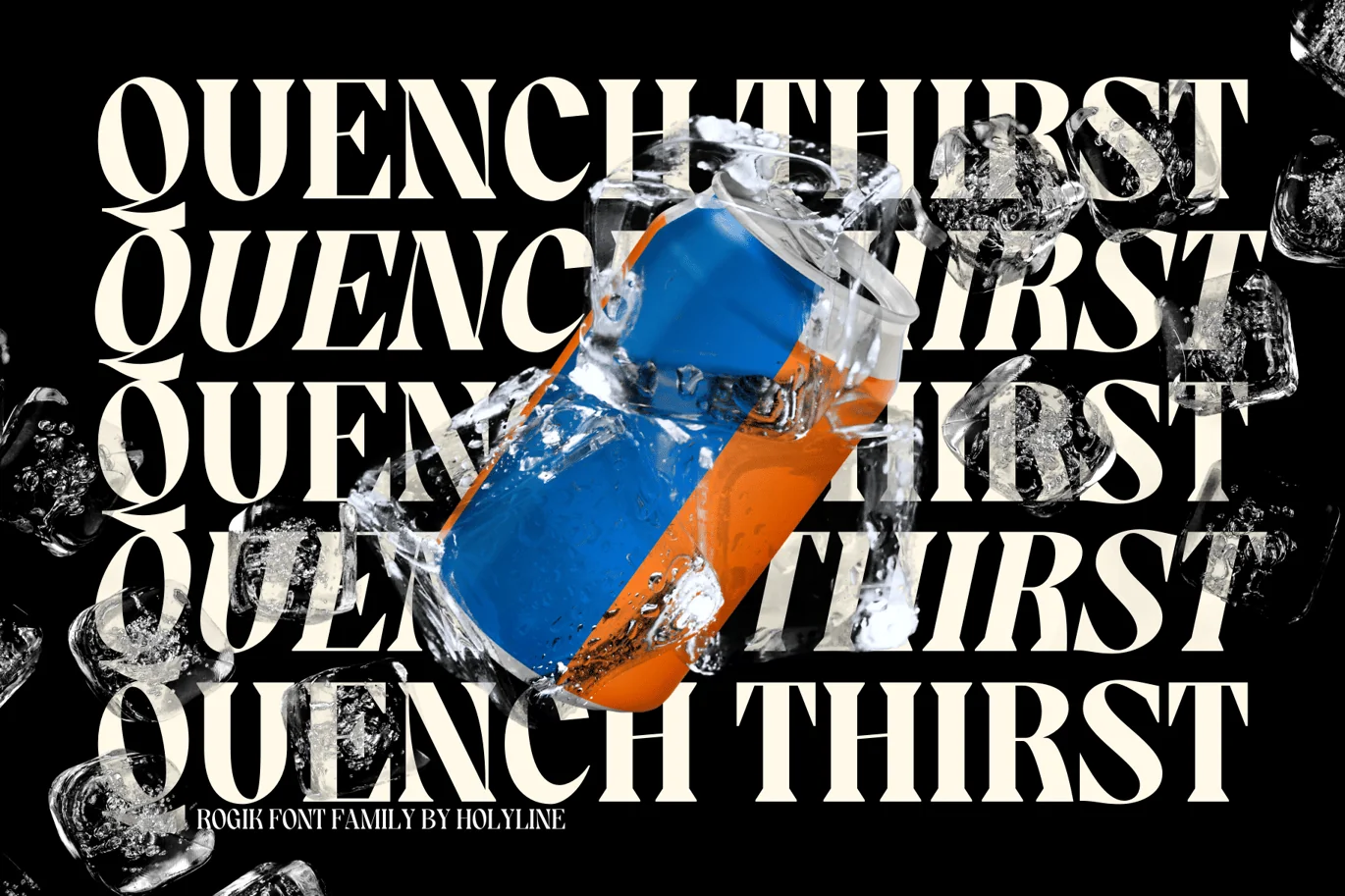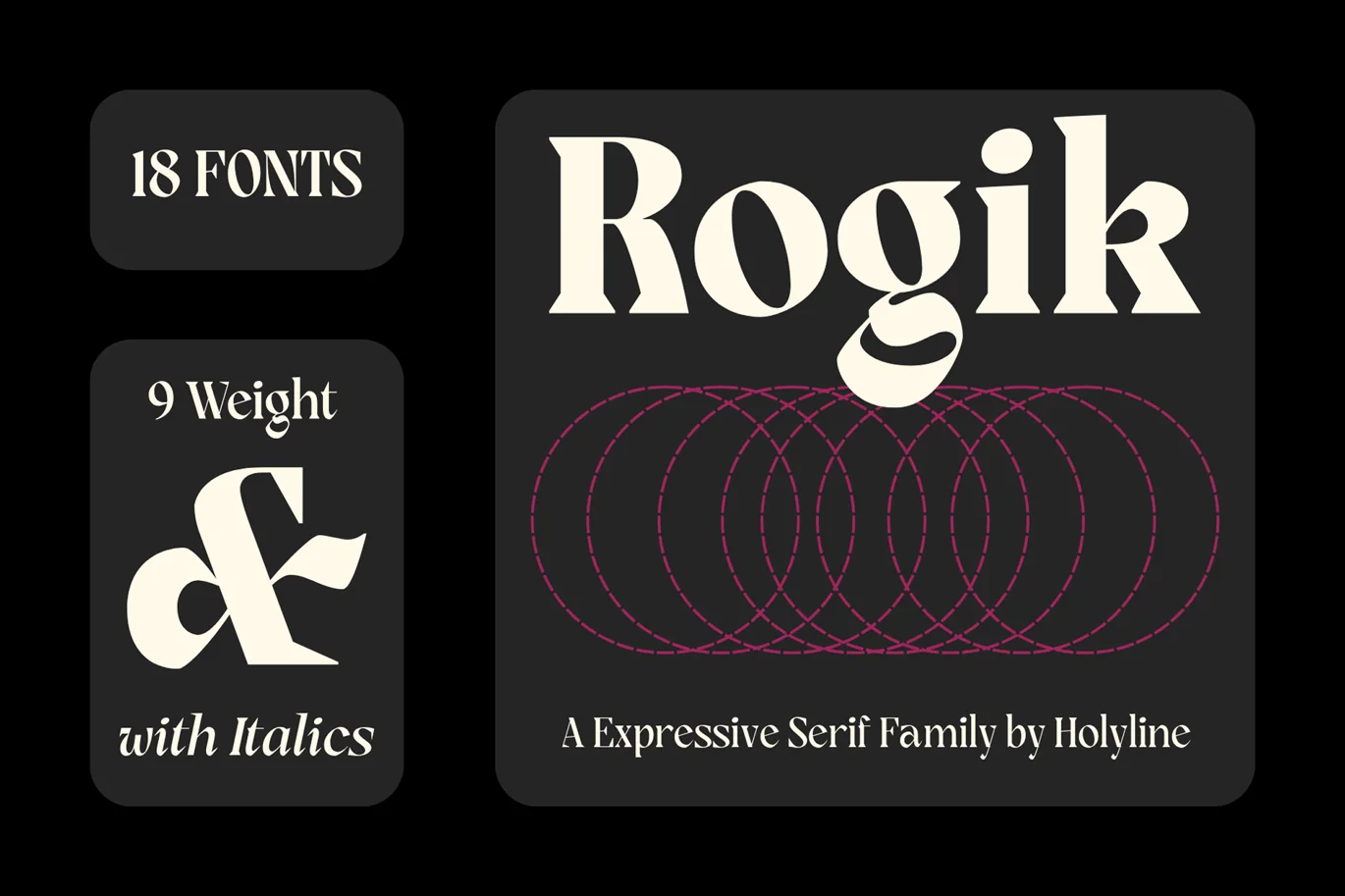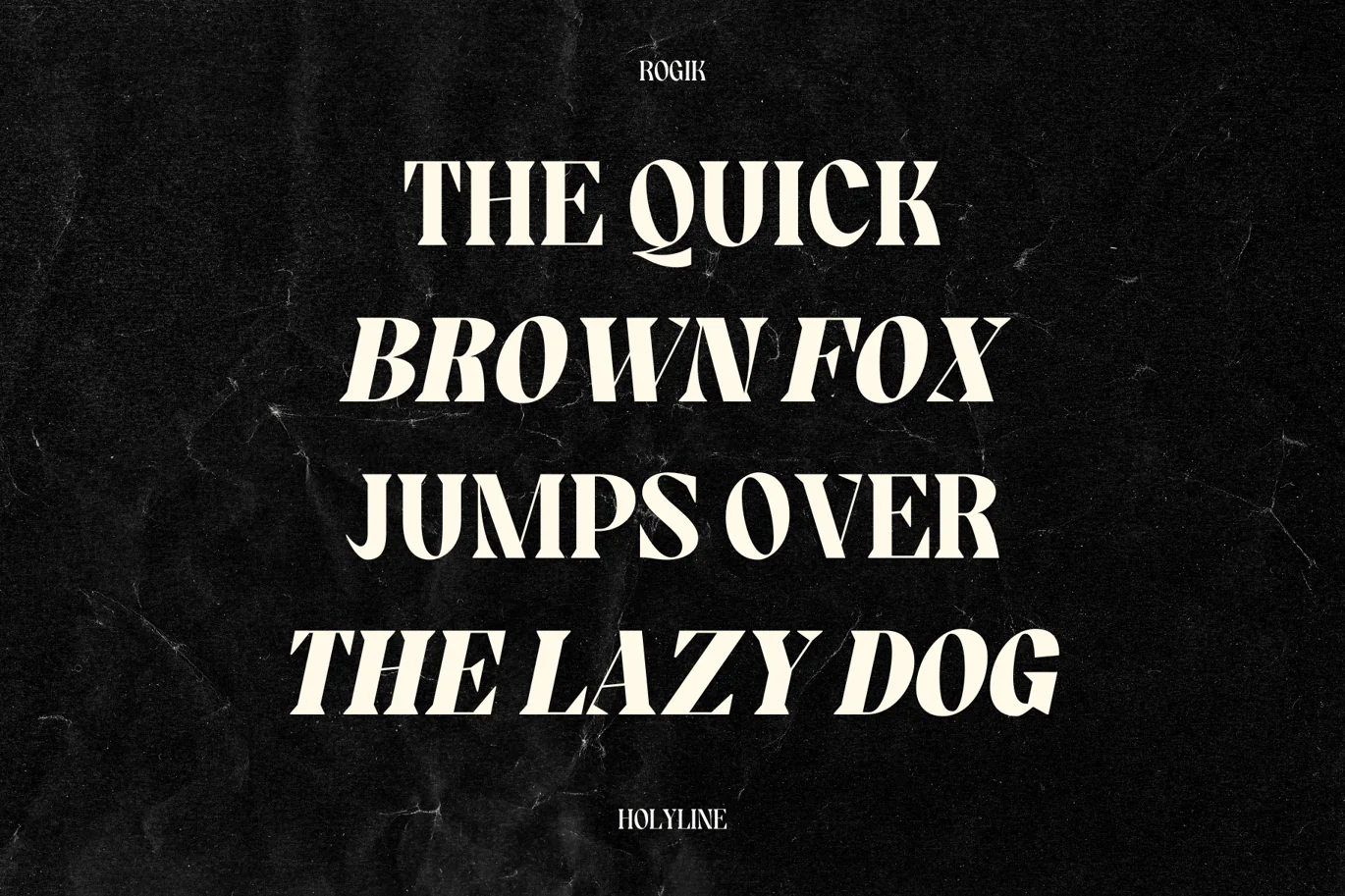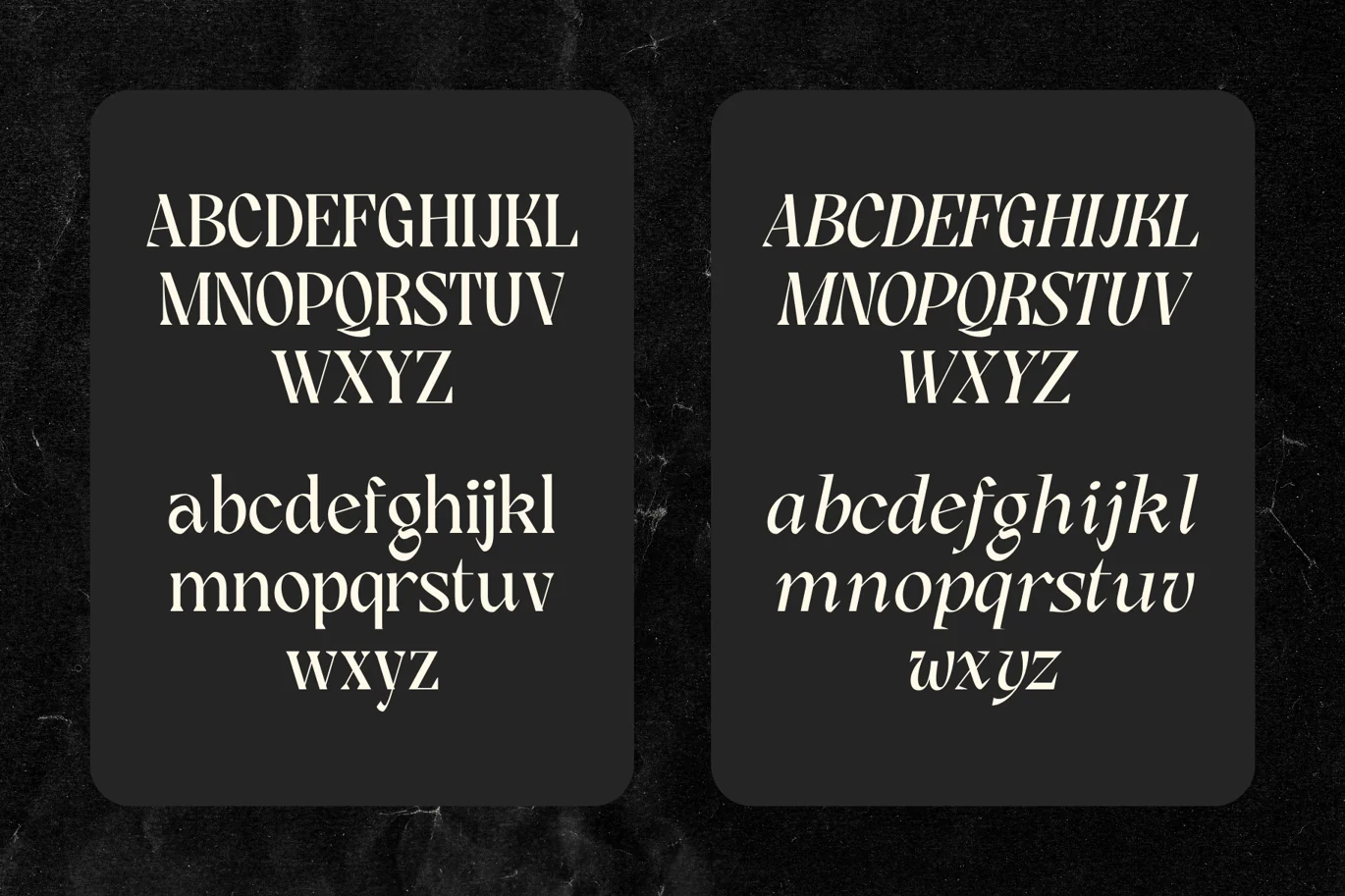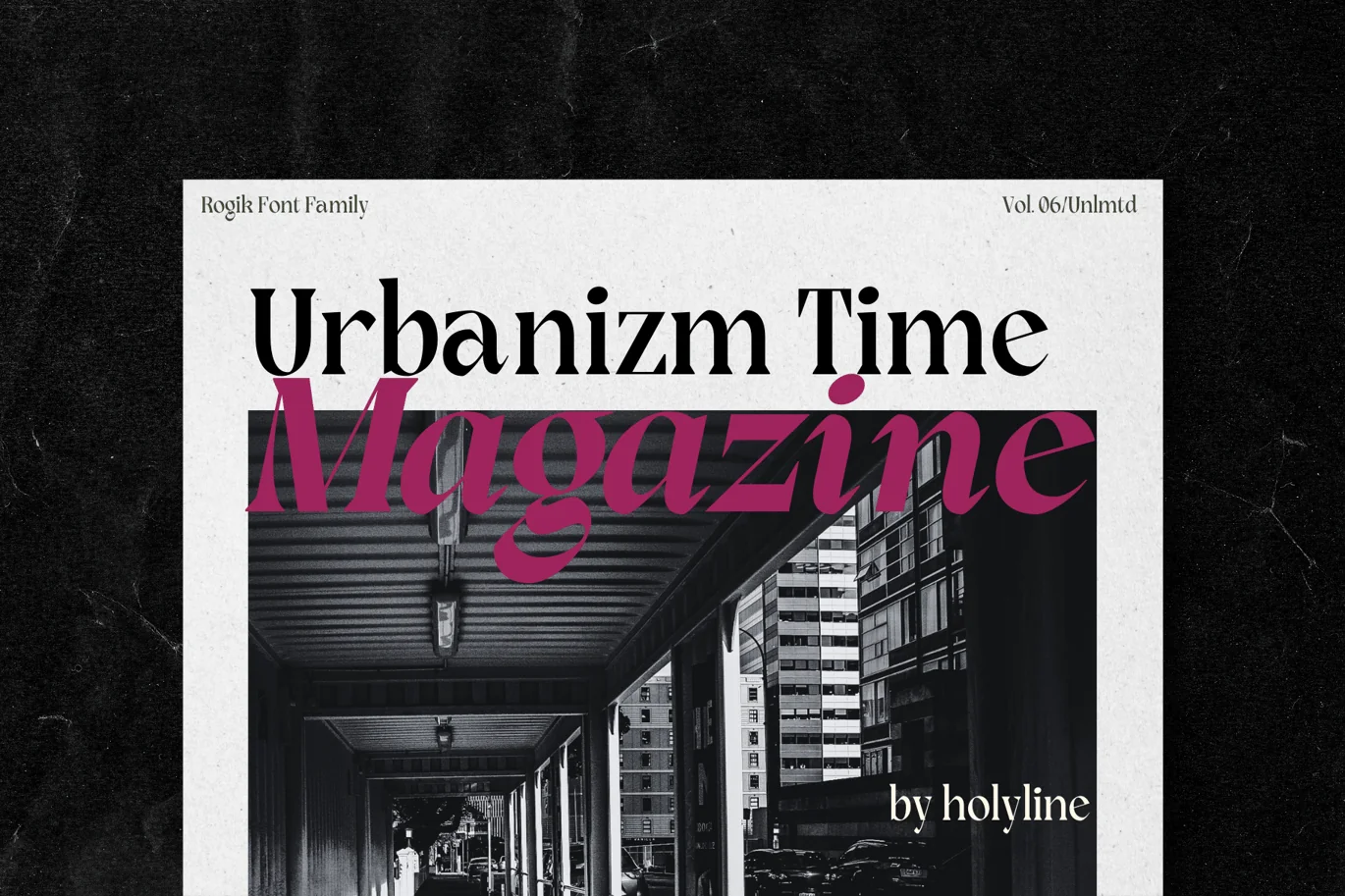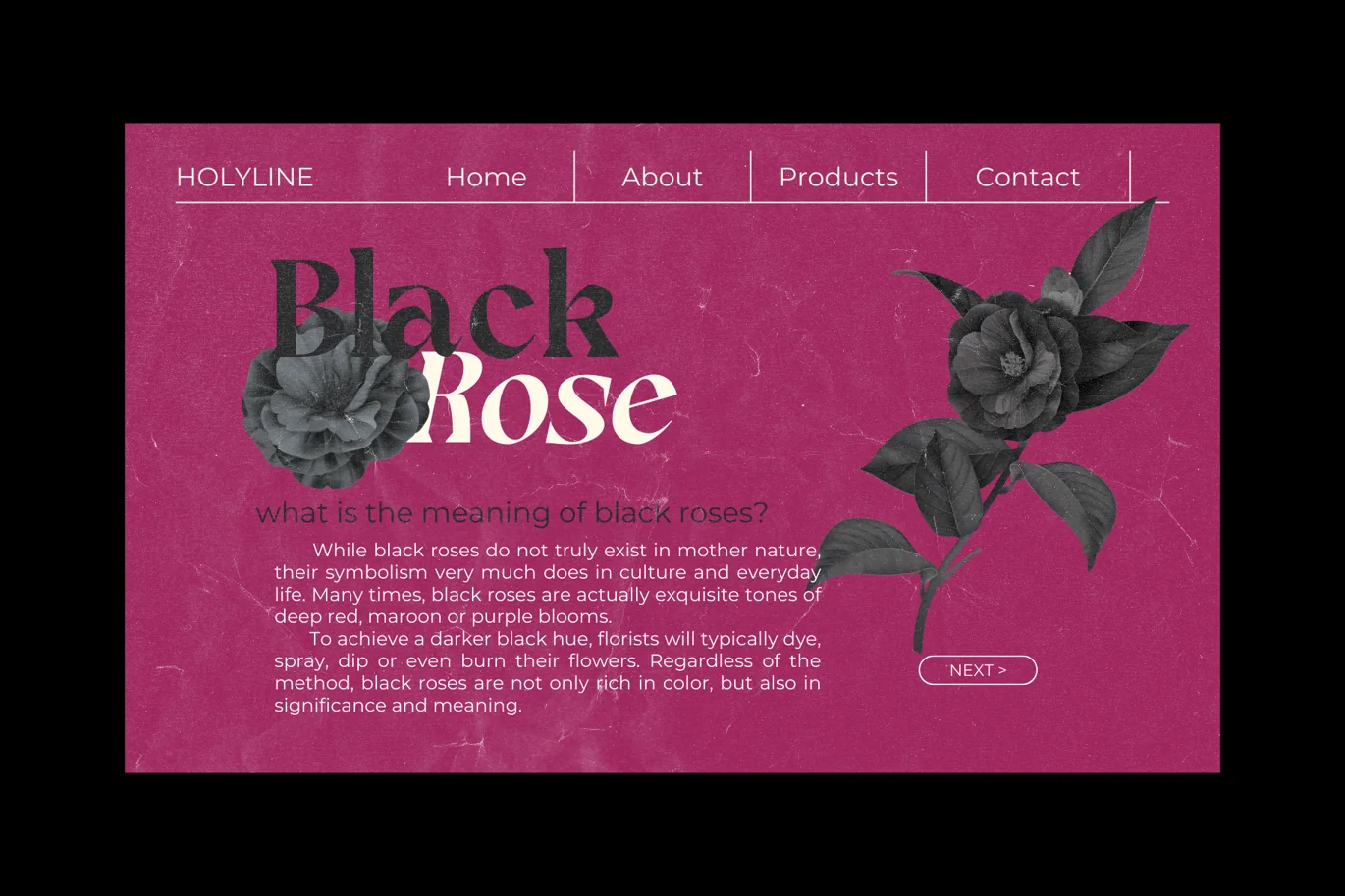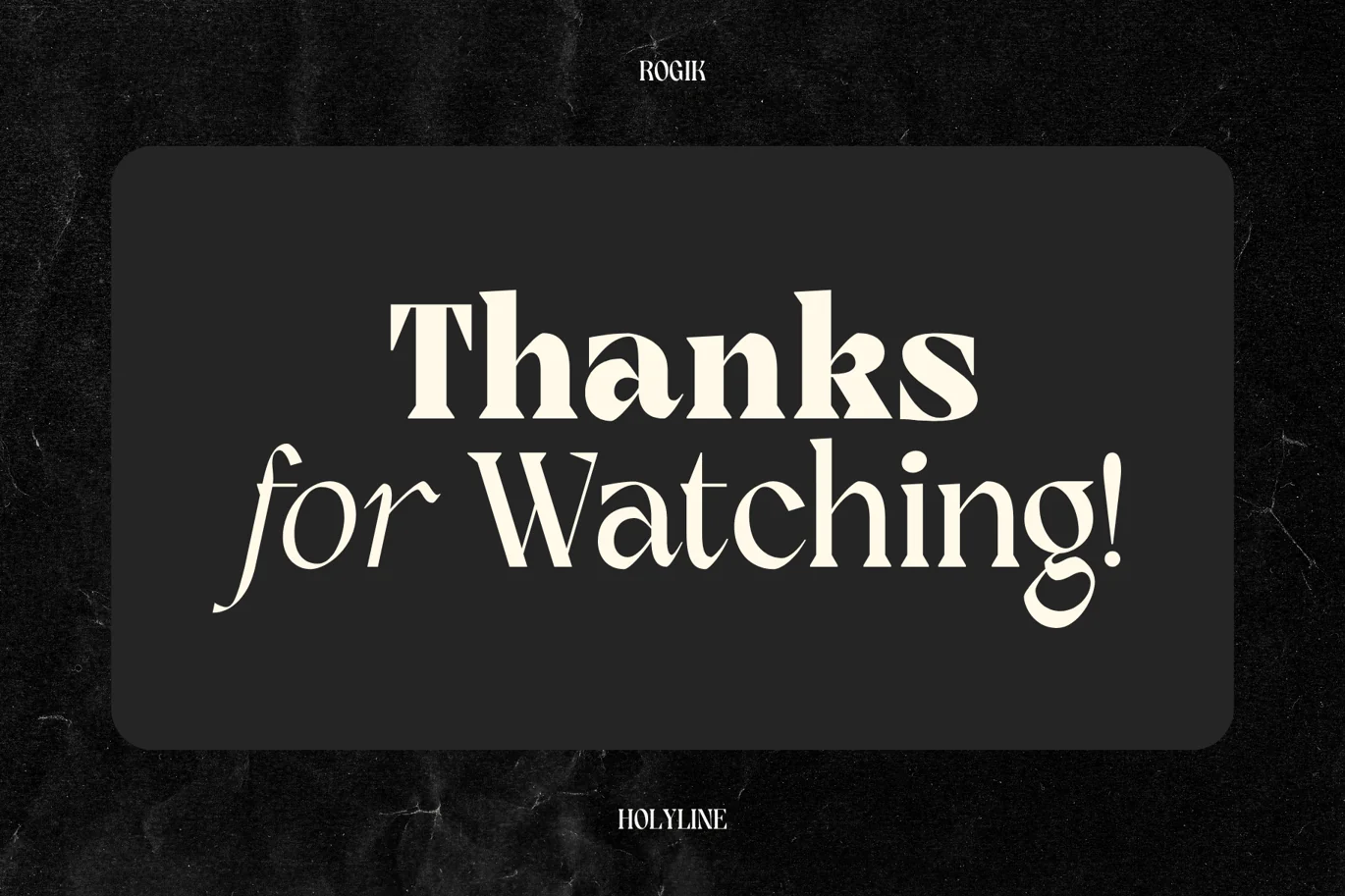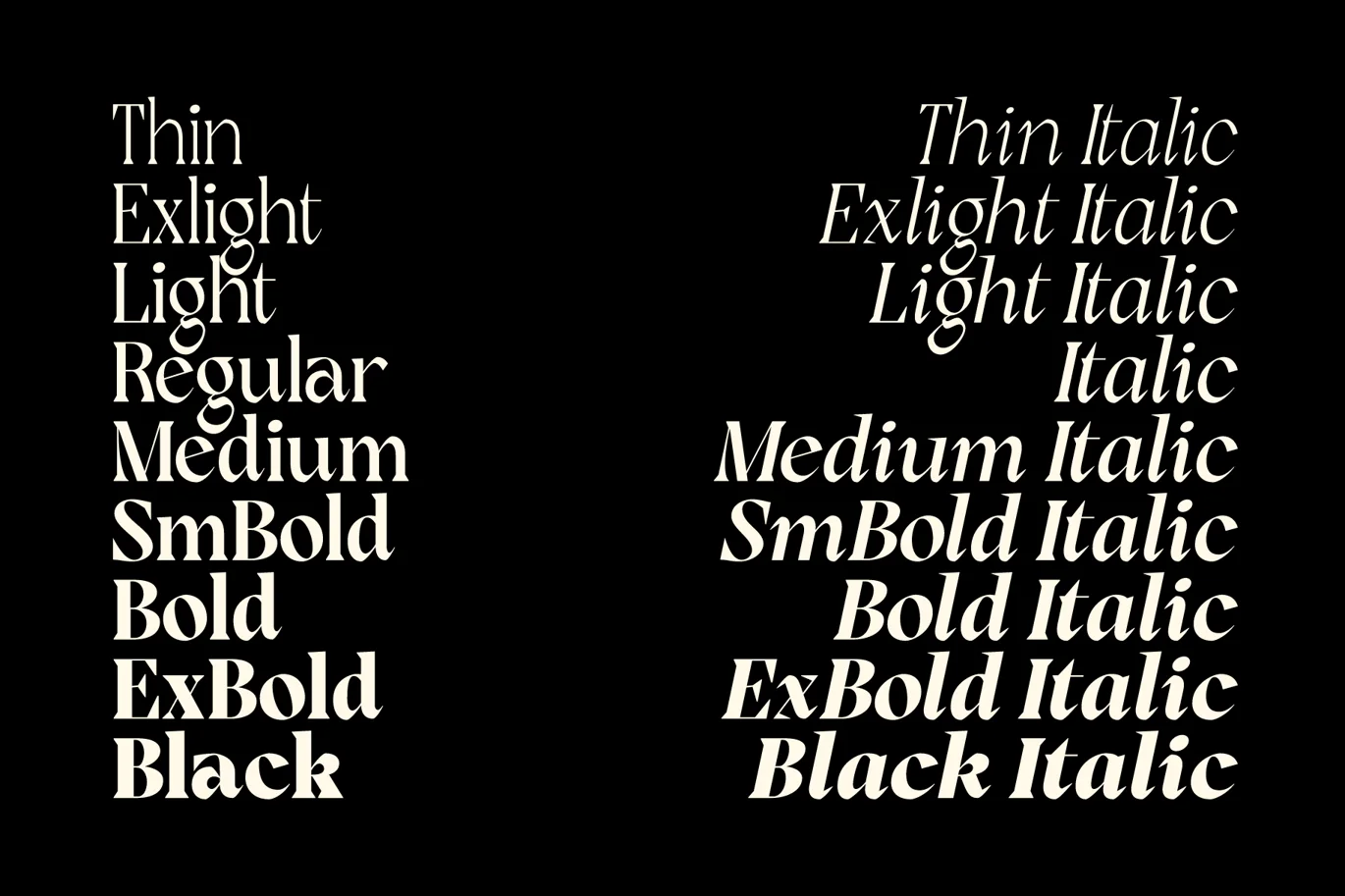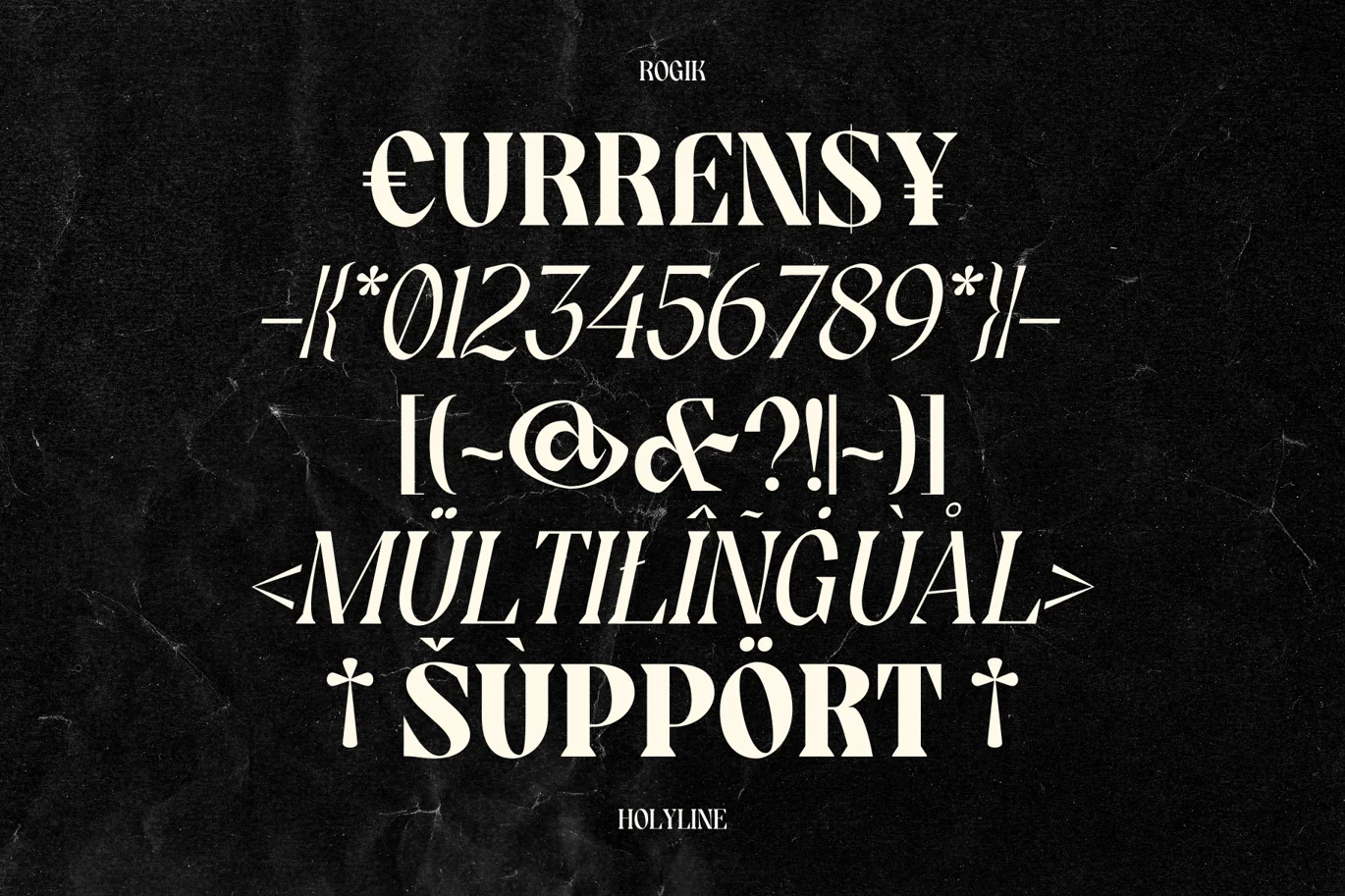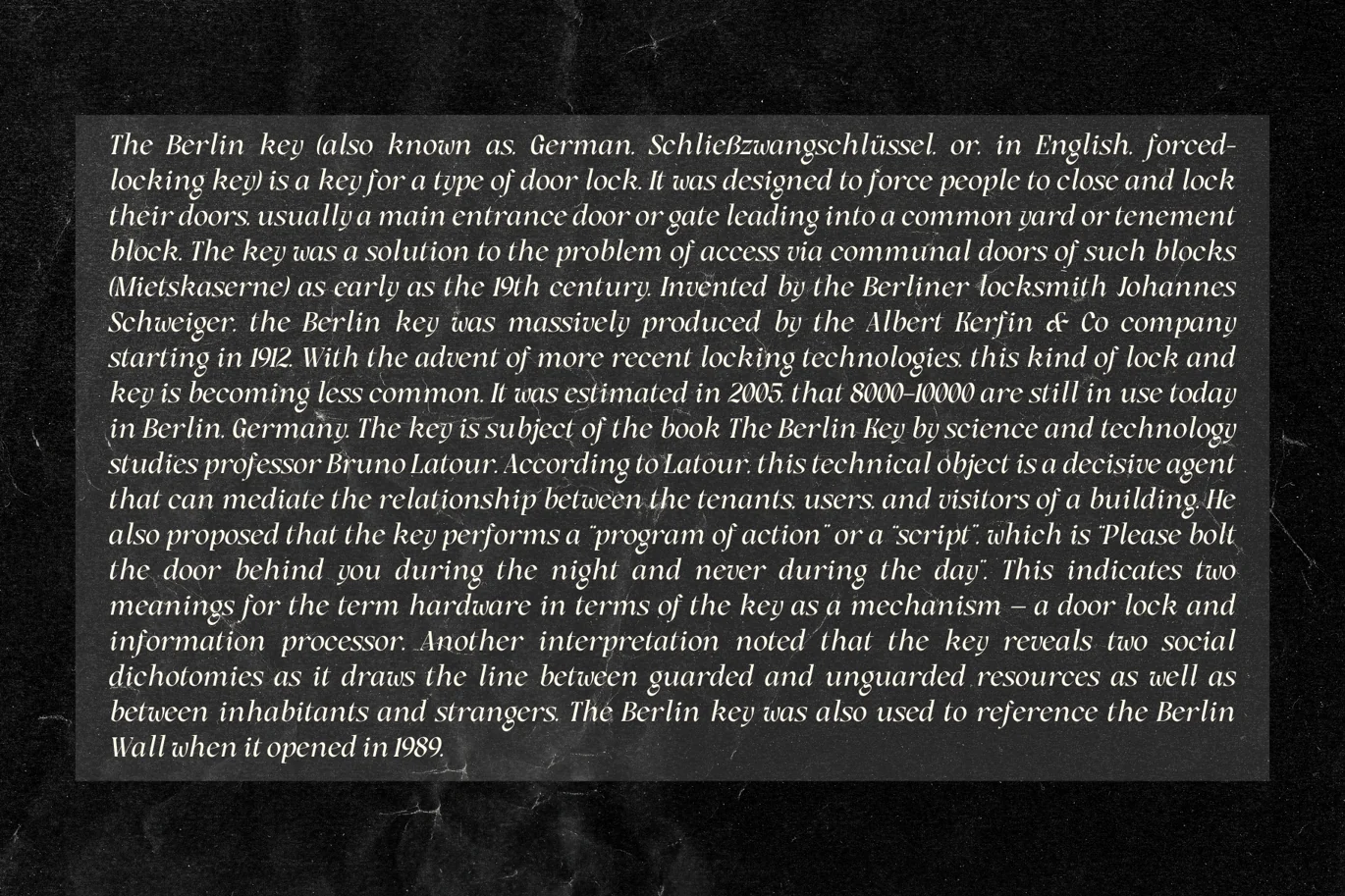
Rogik – Modern Spiky Serif Typeface
Rogik by Holyline, Rogik is a expressive serif font family, This font very elegant, unique , has a strong and sharp character. This font comes in nine weight with italic so there are a total of 18 fonts and support variable for upright and italic. It’s very unique, playful, elegant and very easy to combine with your design style. Rogik also inspire by metal, pop, punk and streetware, fashion brand. Rogik perfect for headline, sub headline ,custom logo,packaging, quote, merchandise, sticker, badges,social media posts, label, album cover and anything for your creativity. Rogik is perfect font if you want something new with your project, you can play the 18 fonts style, and you can pairing this font with the weight, its very satisfy. So happy creating!